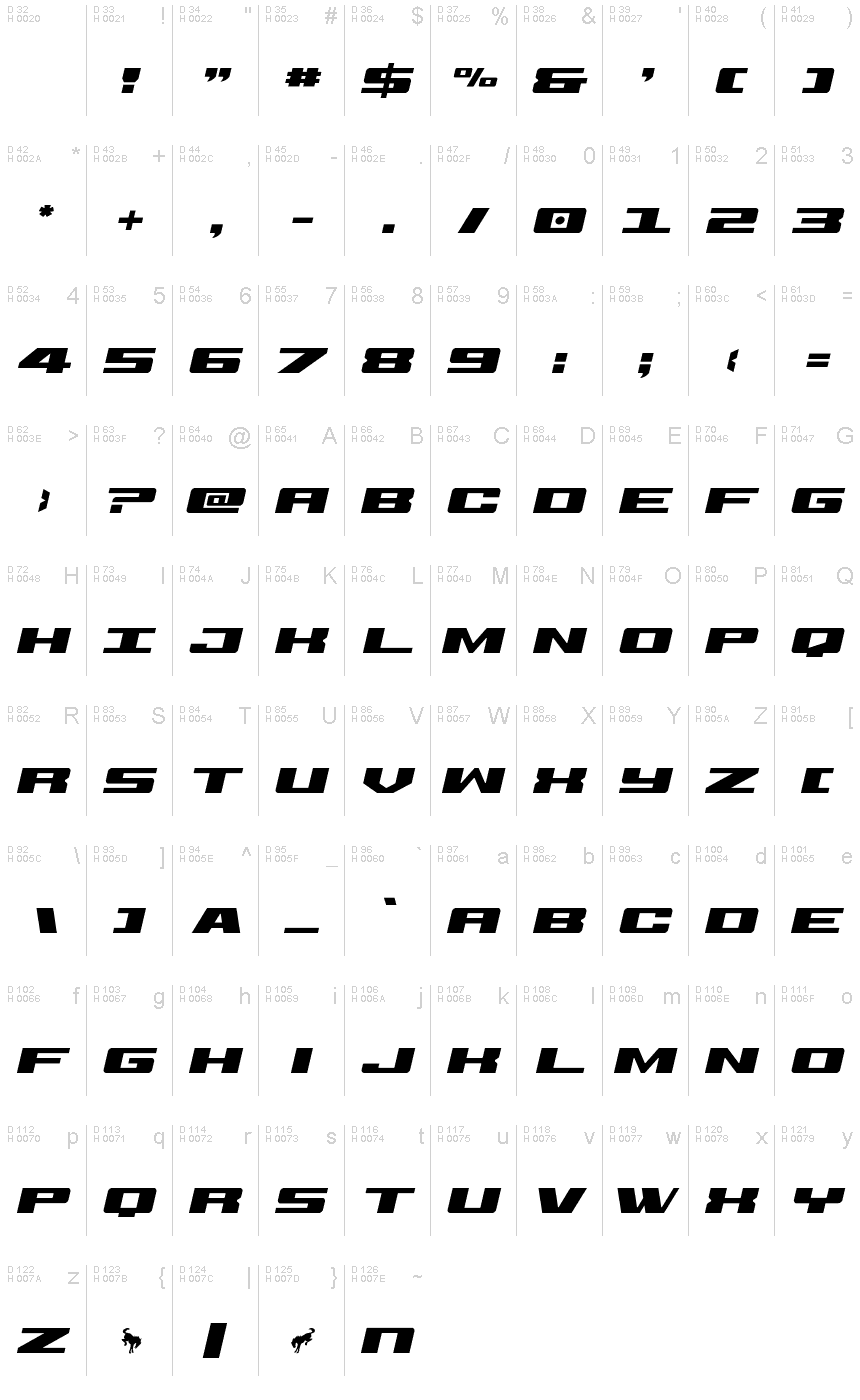
Buckin' Bronc Italic
Buckin' Bronc Italic stands as a testament to the bold creativity of Iconian Fonts, a display typeface that commands attention. This extra-bold, techno-inspired member of the Buckin' Bronc family boasts an extra-expanded width, giving it a formidable presence in any creative arena. With its sleek italics and futuristic flair, this font is tailor-made for projects that demand a strong visual impact—from eye-catching headlines to dynamic logos and beyond. Its distinctive style makes it an ideal choice for those looking to inject energy and modernity into their designs.
Buckin' Bronc Italic doesn't just speak; it shouts with confidence, making it an indispensable asset for designers seeking typographic excellence with an edge.